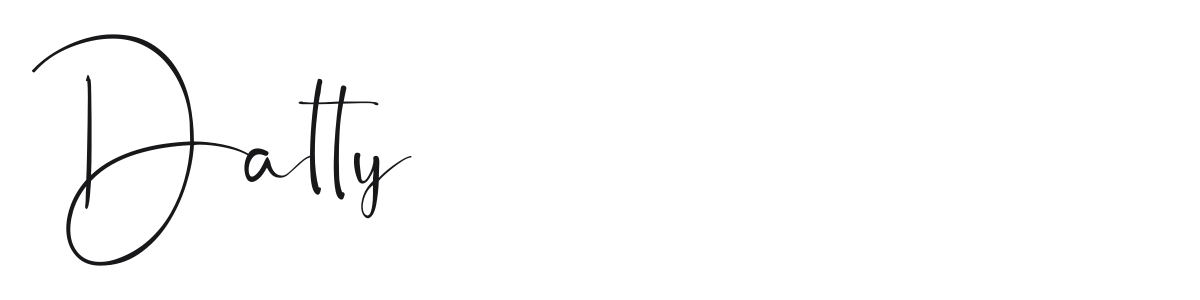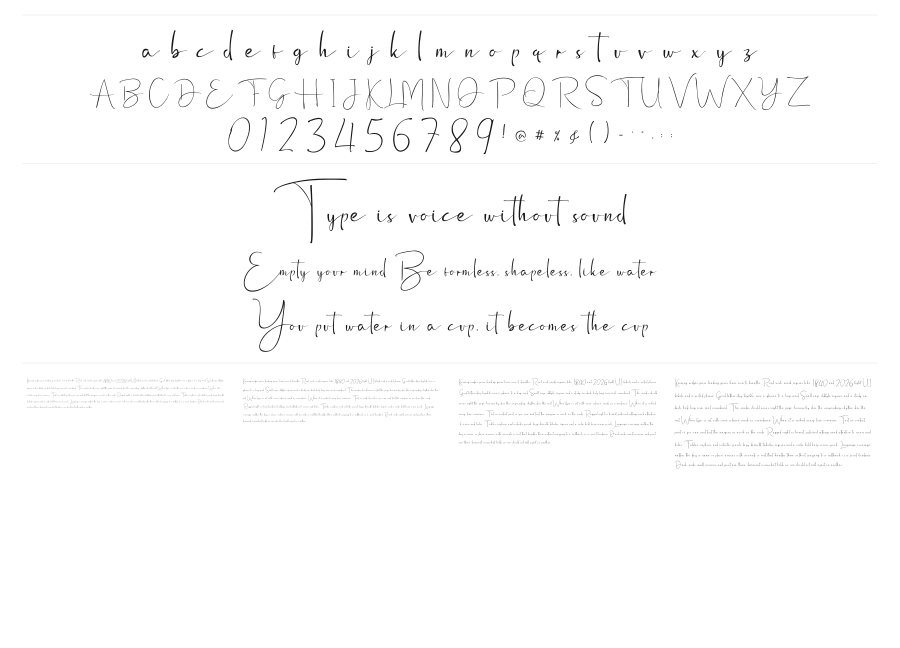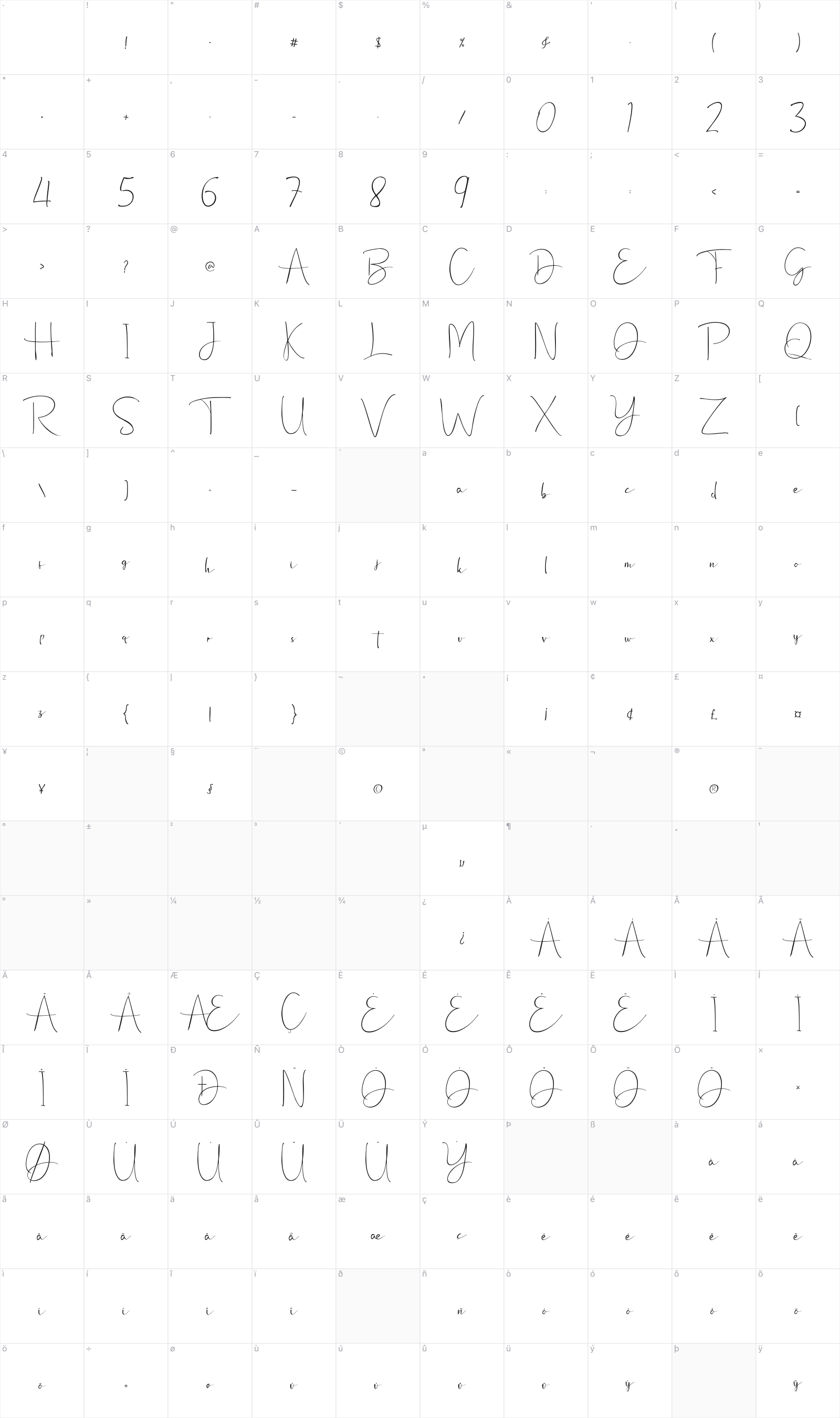
Dalty
Dalty is a thin, flowing casual script with a relaxed handwritten quality and sweeping connecting strokes. Its airy weight and long, looping extensions give it a graceful, romantic character suited to branding and editorial design. PUA encoding makes the full set of swashes and alternates easily accessible.